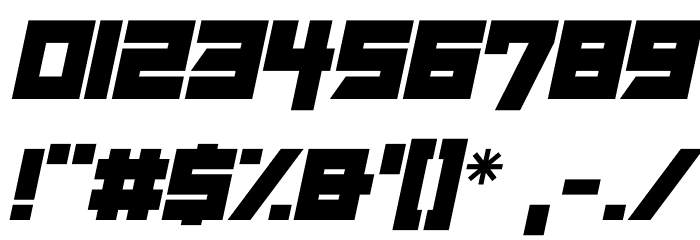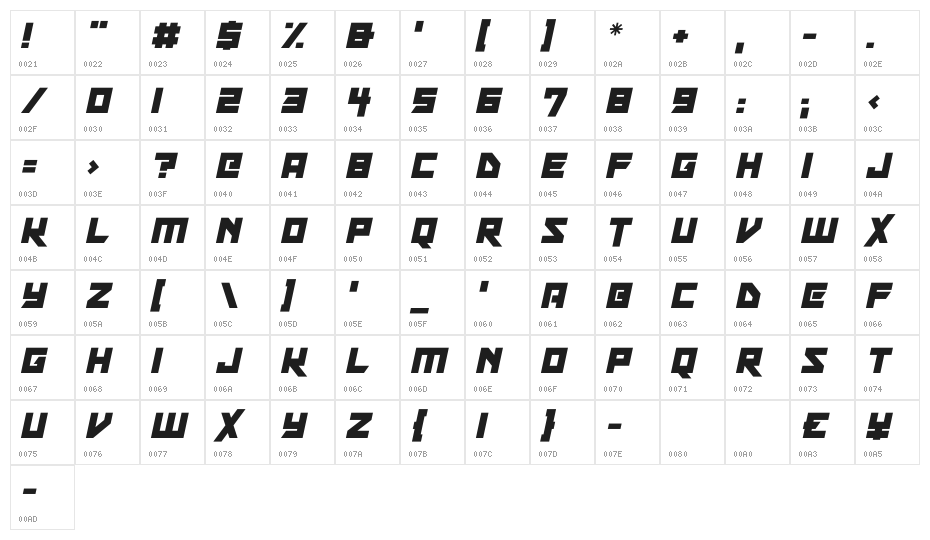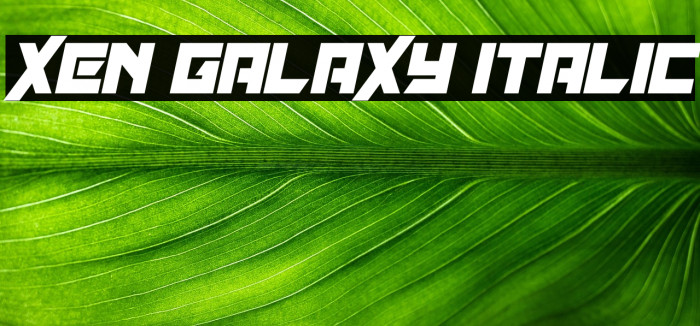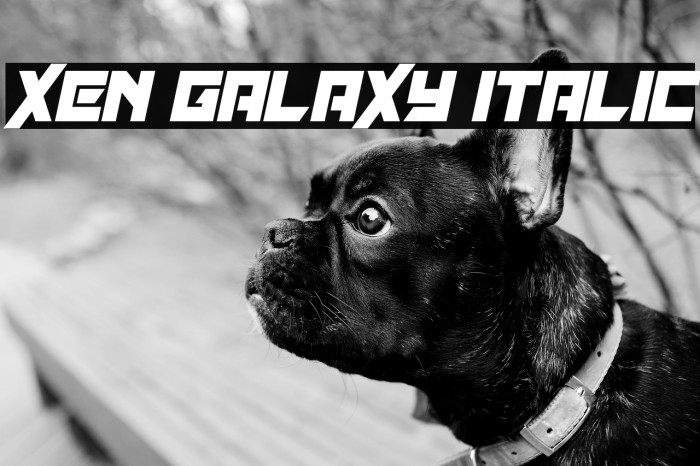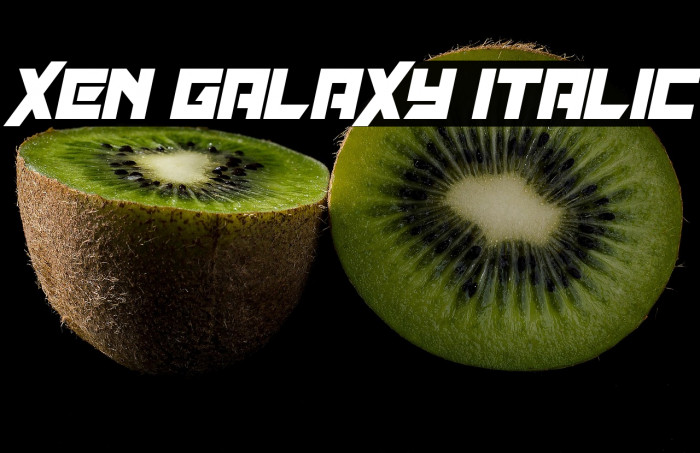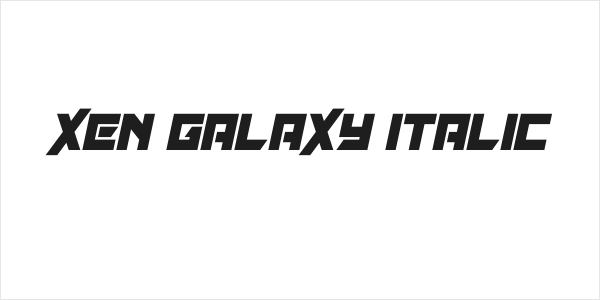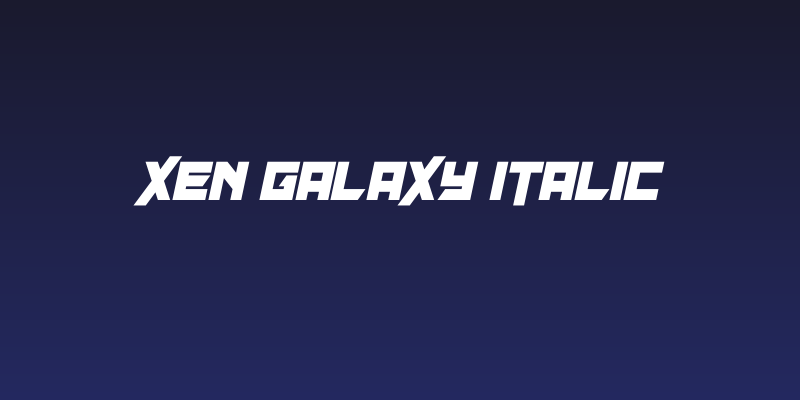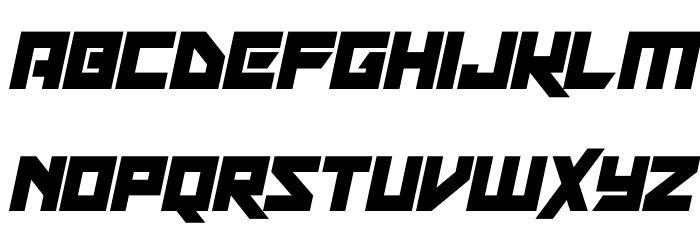
Xen Galaxy Italic Font
Xen Galaxy Italic Description
This font features a futuristic and angular design, characterized by sharp edges and a dynamic slant that gives it a sense of motion and energy. The uppercase and lowercase letters maintain a consistent geometric style, with bold, thick strokes that create a strong visual impact. The numbers and special characters follow the same design principles, ensuring uniformity across all glyphs. The italicized nature of the font enhances its modern and sleek appearance, making it suitable for projects that require a bold and contemporary look.
| Proposed Projects | Ideal for sci-fi themed designs, video game titles, technology branding, and futuristic posters. |